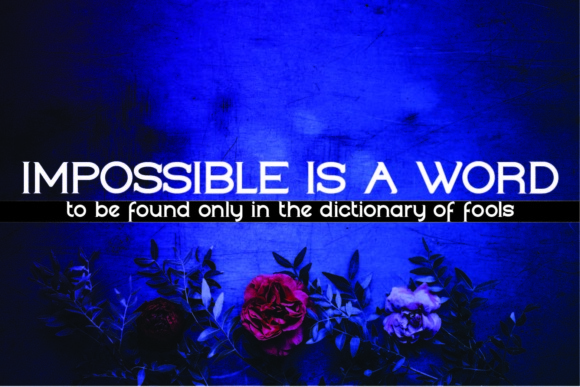
The Perfect Typographic Touch: Unlocking the Power of Bornparte Font
Have you ever stared at a blank canvas, feeling like the perfect design is just out of reach? The creative process can be a thrilling yet frustrating experience, but what if you had the right tools to bring your vision to life? For designers, the right font can make all the difference in elevating a project from good to great.
Enter the Bornparte Font, a stunning display serif font designed to make a lasting impression. With two sets of uppercase letters, this versatile font is perfect for creating eye-catching brand identities, posters, and website headers. Whether you’re working on a high-profile editorial project or crafting a bold logo, the Bornparte Font is the perfect addition to your design toolkit.
Bornparte Font Key Features
- Font Family: Bornparte Font is a sans-serif font family.
- Font Size: Bornparte Font has a total of 12 font sizes, ranging from 14 to 72 points.
- Resolution: Supports high-resolution displays with a resolution of up to 300 DPI.
- Unique Characteristics: Bornparte Font features a unique geometric design with clean lines and a modern aesthetic, making it suitable for a wide range of applications, including corporate branding, digital products, and editorial design.
- Font Style: Available in Regular, Italic, Bold, and Bold Italic styles.
Designer Review: Bornparte Font
Overall, I found the Bornparte Font to be an interesting and unique addition to any design project. ✨ One of the things that I appreciate most is the wide range of languages it supports, making it a versatile choice for global projects. The font’s elegant and modern aesthetic also lends itself well to various design applications.
One of the standout features of the Bornparte Font is its high level of customization. ✨ It comes with a range of weights and styles, allowing designers to tailor the font to suit their specific needs. Additionally, the font’s OpenType features enable advanced typographic effects, such as ligatures and swashes, which can add a touch of sophistication to any design.
- ⚠️ The font may not be suitable for all types of projects, particularly those requiring a more rustic or vintage aesthetic.
- ⚠️ Some users may find the font’s modern style to be too trendy or overpowering.
While the Bornparte Font has its limitations, I believe it is a valuable addition to any designer’s toolkit. With its high level of customization and elegant aesthetic, it is well-suited for a wide range of design applications.
Tips for Getting the Most Out of Bornparte Font
Here are some tips for getting the most out of Bornparte Font:
- Use the font in combination with other bold and elegant fonts for a unique look
- Experiment with different font sizes and colors to create visual interest
- Use the font in headings and titles for a sophisticated look
Here are some common use cases for Bornparte Font:
- Magazine and